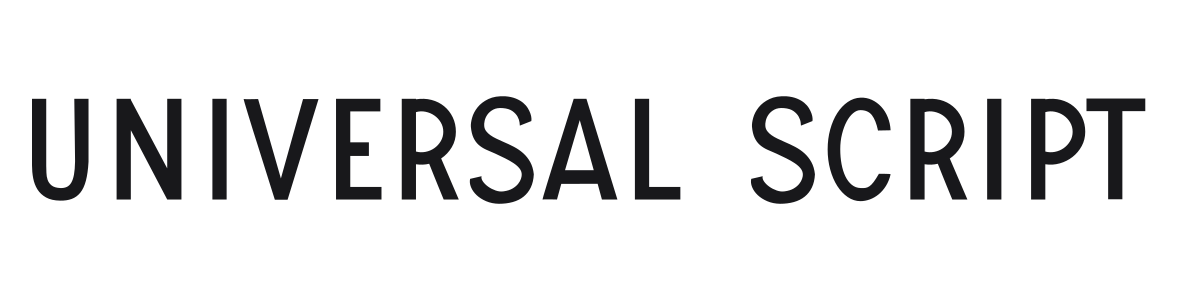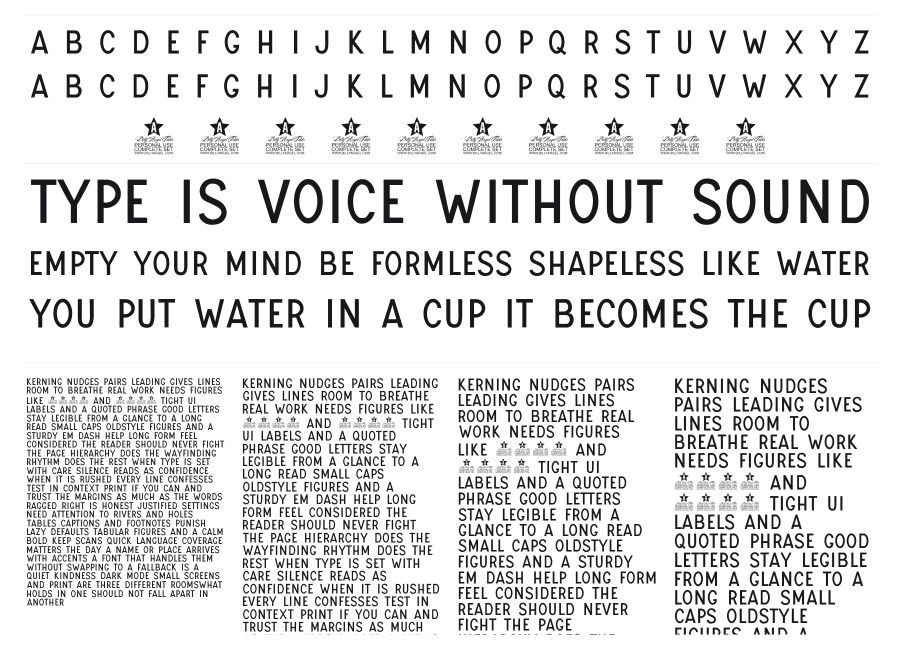
Universal Script
Universal Script is a condensed grotesque sans with clean flat terminals and a near-monoweight stroke throughout. It draws on mid-century European grotesque tradition, sitting comfortably between strictly geometric and purely neutral without committing hard to either. The compact proportions make it a natural choice for tight headline settings and identity work.